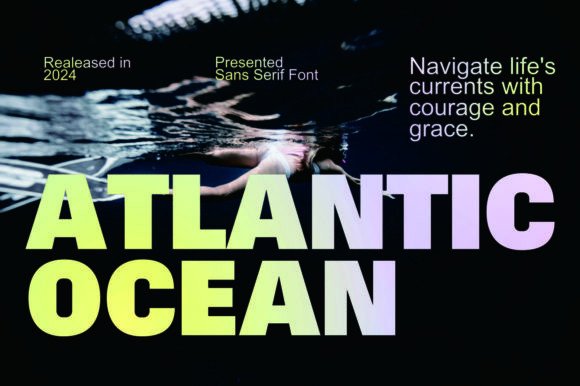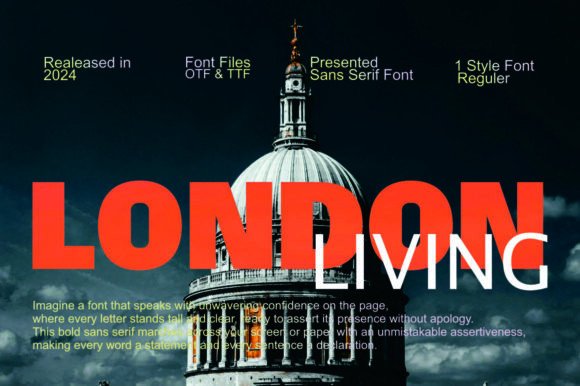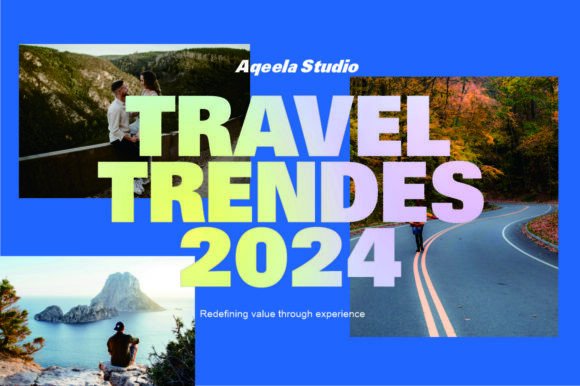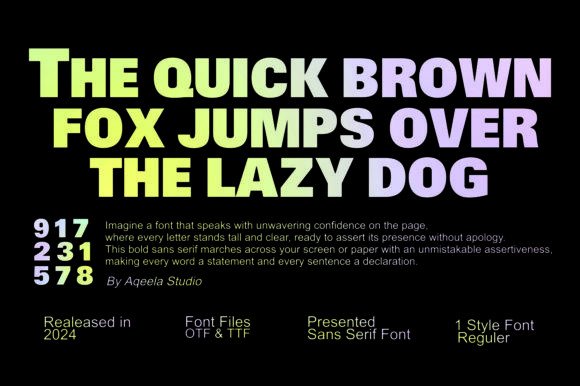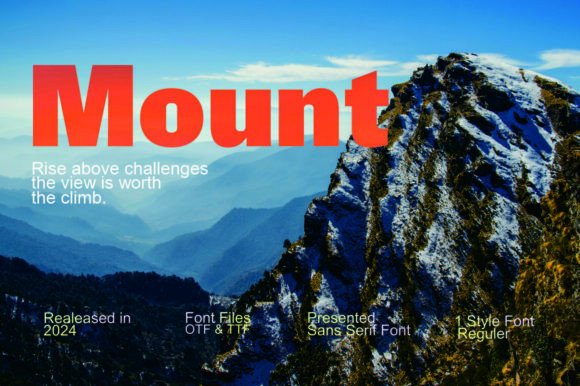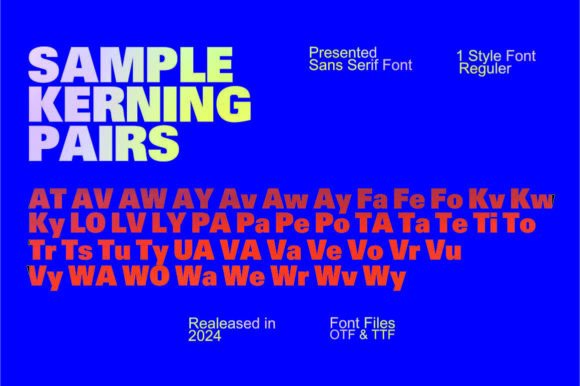
The Ultimate Typographic Rebel: Ciston Font
Have you ever stared at a blank page, eager to unleash your creative vision, only to feel stifled by the limitations of your font options? We’ve all been there. But what if you could tap into a typographic power that commands attention, speaks louder than the rest, and leaves a lasting impression?
| 👤 Author | Aqeela Studio |
Enter the Ciston sans serif font, a bold and modern typographic rebel that’s taking the design world by storm. With its clean lines and confident feel, the Ciston Font is a go-to choice for brands and designers who refuse to blend in. Whether you’re crafting a logo, designing a website, or creating a social media campaign, the Ciston Font is the perfect tool to make your message stand out from the crowd.
For designers, the Ciston Font is a valuable asset, offering a level of sophistication and clarity that’s hard to find elsewhere. Its versatility and modern feel make it an ideal choice for a wide range of projects, from tech startups to fashion brands, and everything in between.
Ciston Font Key Features
- Unique Characteristics: Ciston Font boasts a distinctive, modern design with a blend of geometric and sans-serif elements, making it ideal for contemporary and minimalist branding.
- Font Family: Ciston Font comes in a range of weights, from Light to Bold, providing flexibility for various design applications and ensuring consistent branding across different materials.
Ciston Font Review
Overall, I’d say the Ciston Font is a solid choice for designers looking for a modern sans-serif font. ✨ Here are some of the things that work well:
- Highly legible, even at smaller font sizes, making it a great choice for body text and headlines.
- Works well in both print and digital formats, making it a versatile choice for designers working on a variety of projects.
- ⚠️ Limited character set, which may not be ideal for designers working with languages that require a wider range of characters.
- ⚠️ Not as polished as some other sans-serif fonts on the market, which may be a drawback for designers looking for a more refined look.
Overall, I’d give the Ciston Font 3.5 out of 5 stars. It’s a solid choice for designers who want a modern sans-serif font that’s easy to use and highly legible. However, it may not be the best choice for designers who need a font with a wider range of characters or a more polished look.
Tips for Getting the Most Out of Ciston Font
Use Ciston Font for headings and titles to create a visually appealing design.
Combine Ciston Font with other fonts to create a unique and interesting typography.
Common Use Cases for Ciston Font
Use Ciston Font for creative projects, such as posters, flyers, and brochures.
Apply Ciston Font to logos and branding materials for a unique and memorable look.
Use Ciston Font in digital projects, such as websites and social media graphics.